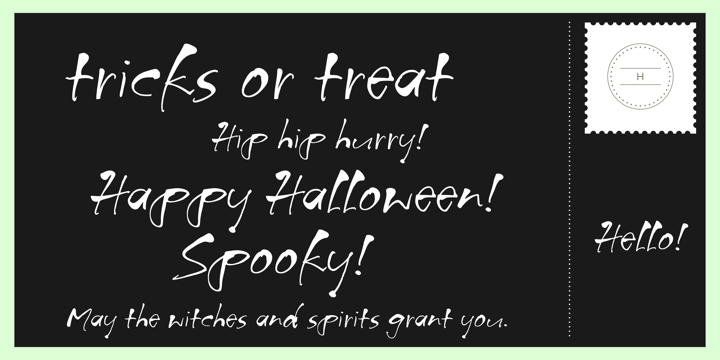
• Fultoon HMK
Fultoon HMK is an energetic, quirky script style font designed by the lettering artists at Hallmark Cards. It has a handwritten style with the appearance of ink blobs.